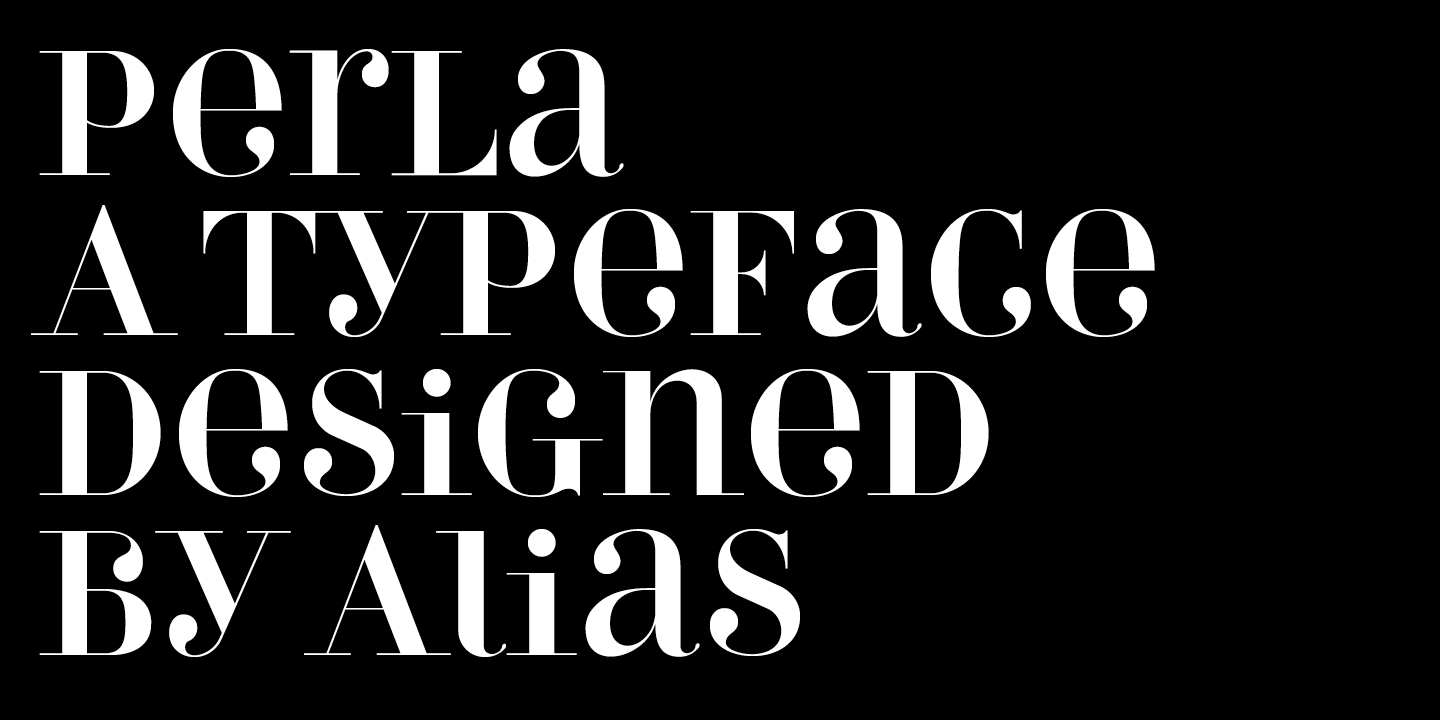
Looking for a font that radiates timeless elegance? Perla Font Free Download offers a graceful serif design perfect for luxury branding, wedding invitations, editorial layouts, and high-end packaging. Its delicate curves and refined details create an air of sophistication for any project demanding classic beauty.
Why Designers Love Perla Font
Perla Font Free Download delivers exceptional typographic quality with:
Exquisite serif details with subtle contrast
Beautiful ligatures & alternates for custom styling
Perfect readability in both print and digital media
Versatile weights from light to bold
Perla Font Free Download – The Epitome of Refined Typography
Elevate your premium projects with this exquisite typeface for:
Bridal stationery & formal invitations
Luxury cosmetic branding & packaging
Fashion magazines & editorial designs
High-end restaurant menus & hotel branding
(Typography Tip: Use Perla's italic variant for beautiful emphasis in your layouts!)